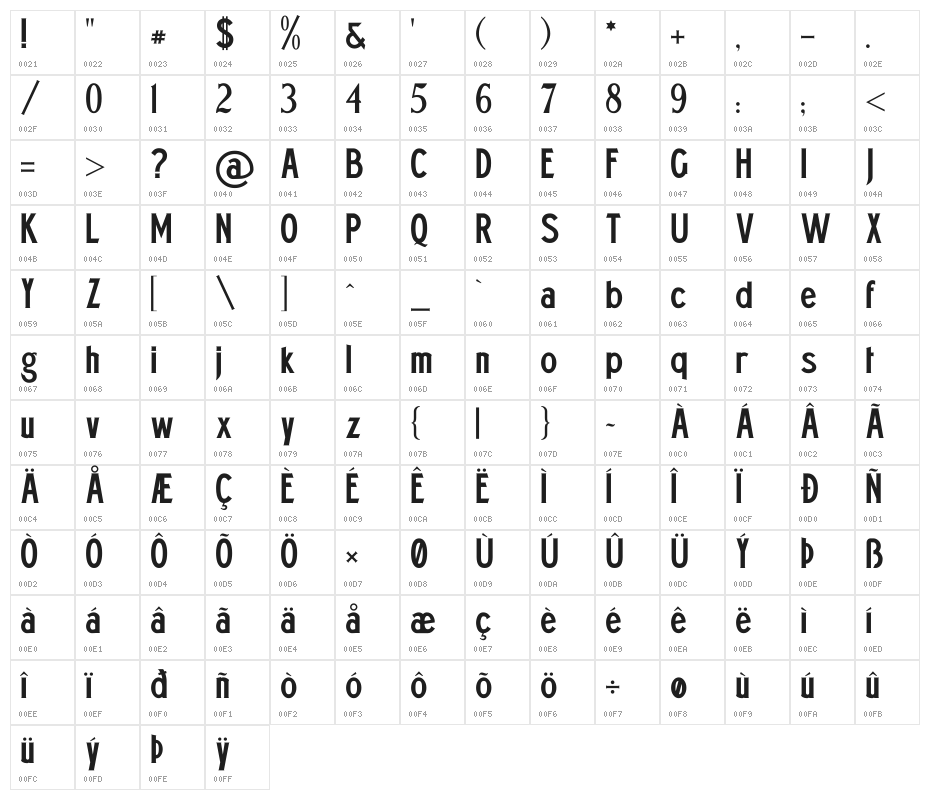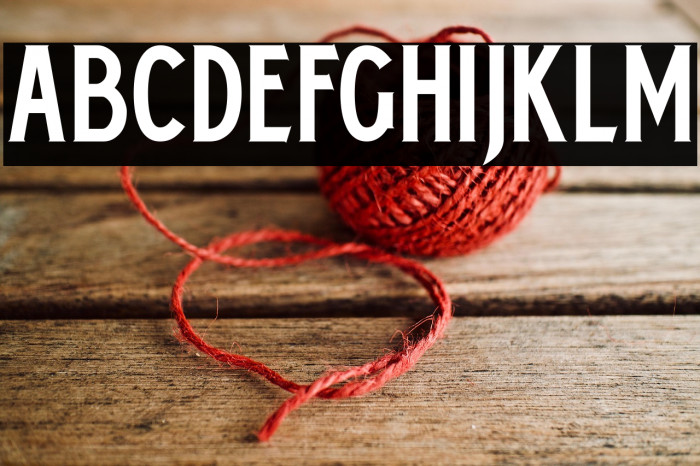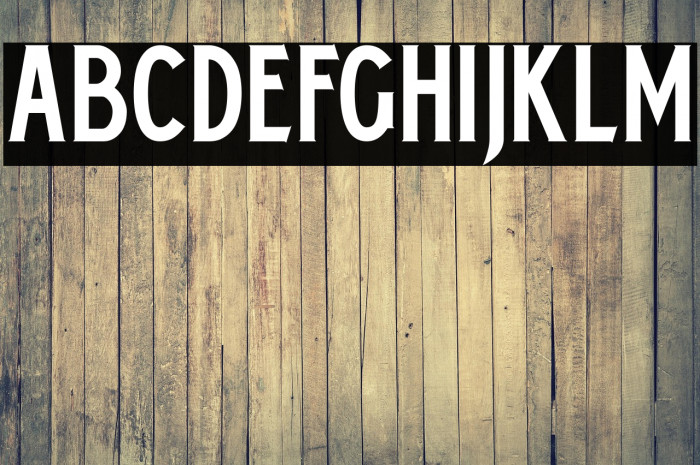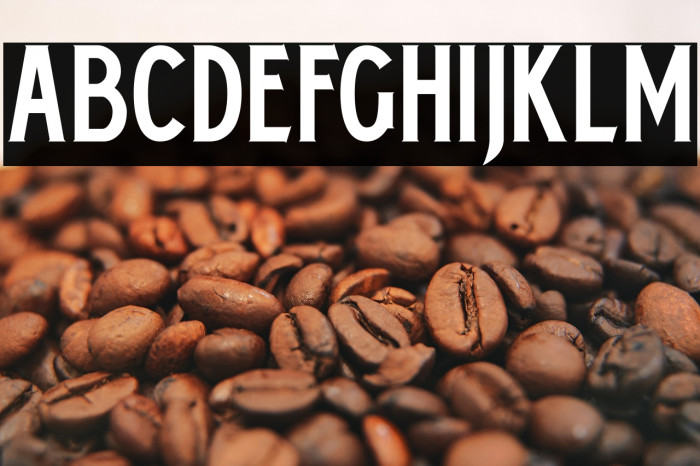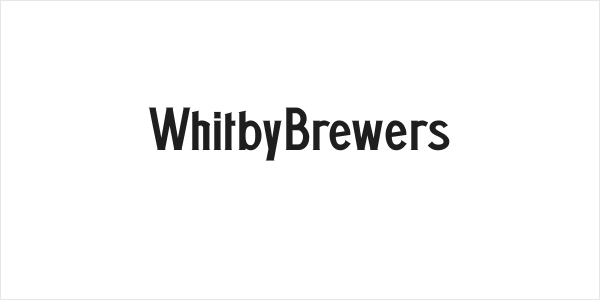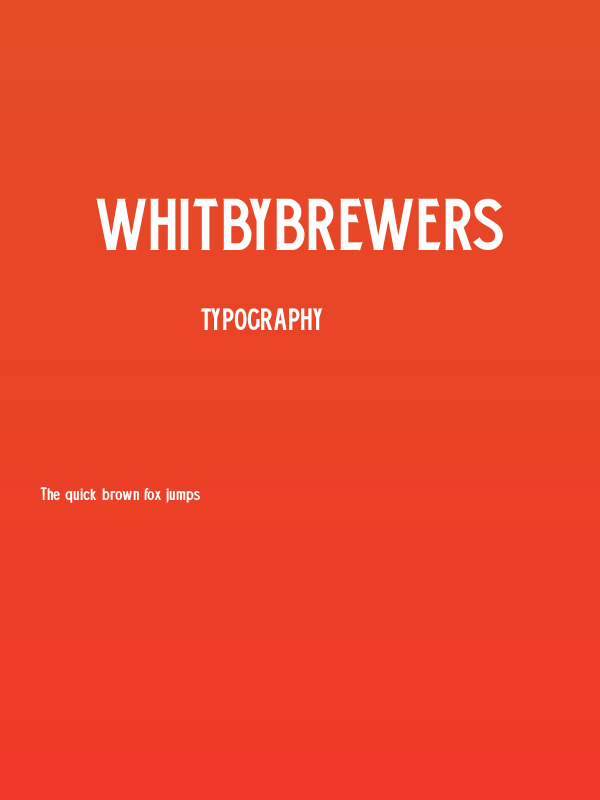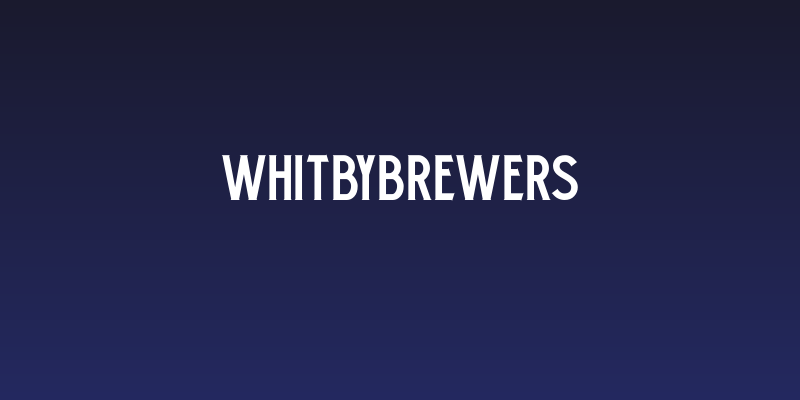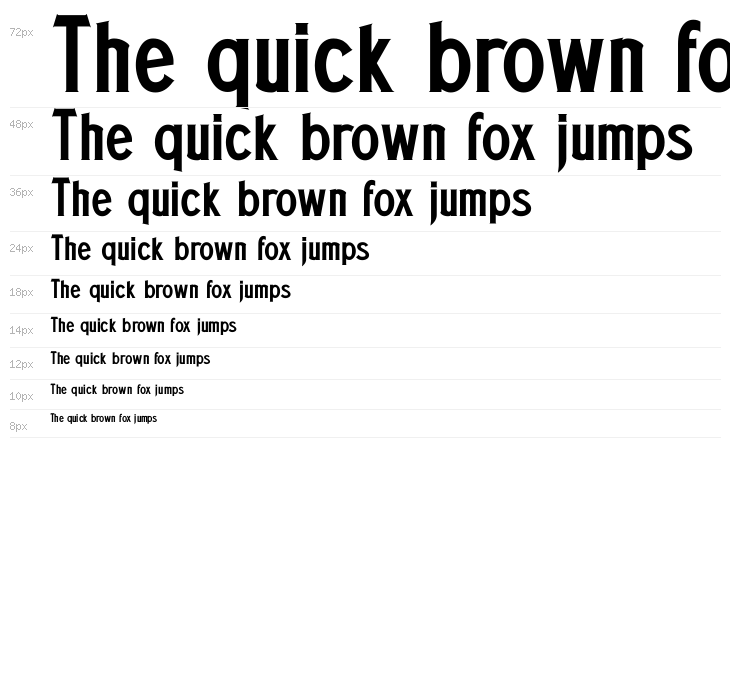
WhitbyBrewers Font
WhitbyBrewers Description
This font features a bold and dynamic style with a strong presence. The uppercase letters are tall and slightly condensed, giving a sense of authority and impact. The lowercase letters maintain a consistent height with a slight curvature, adding a touch of elegance. The numbers are clear and legible, with a uniform thickness that complements the overall design. Special characters are distinct and well-integrated, ensuring versatility in various contexts. The font's boldness and unique character shapes make it suitable for attention-grabbing headlines and branding projects.
| Proposed Projects | Ideal for branding, headlines, posters, and packaging design. |